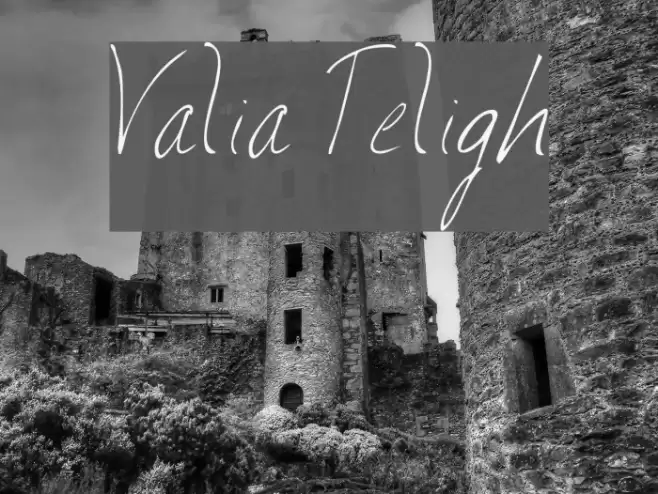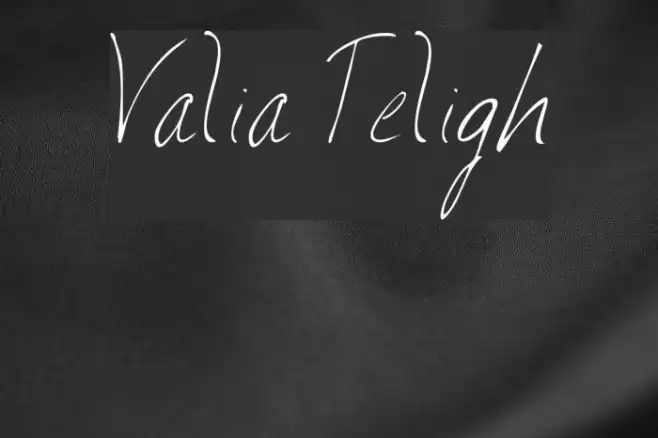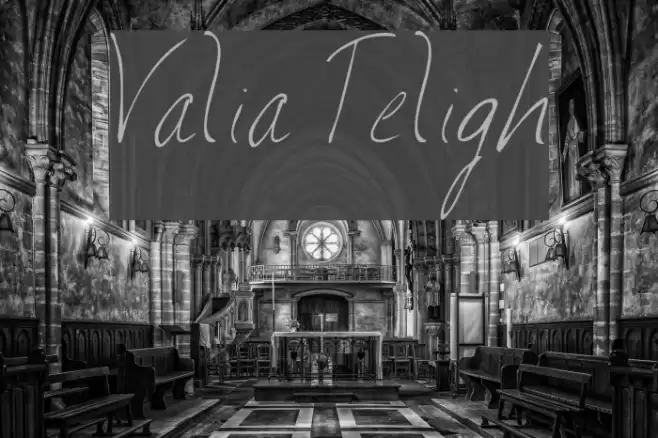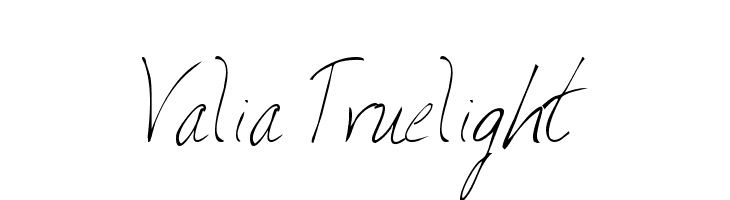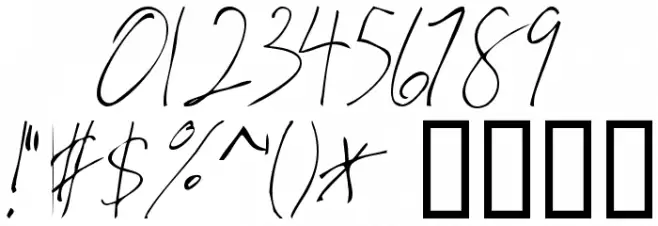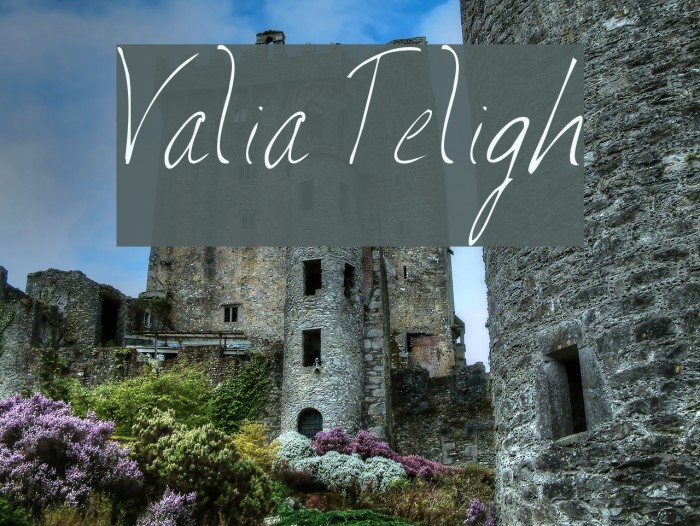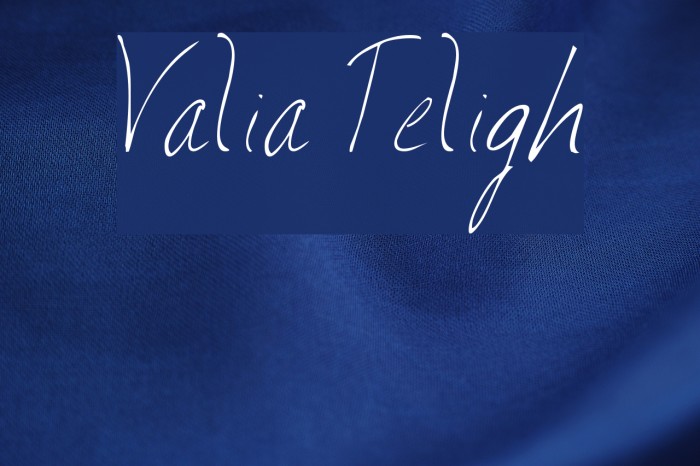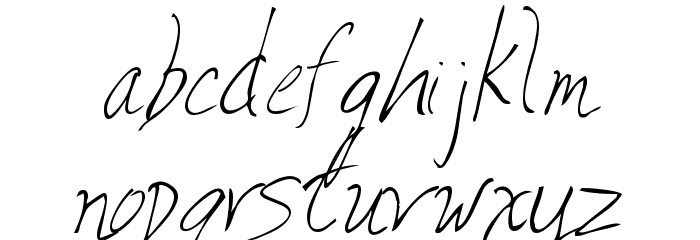
Valia Truelight
This font features a dynamic and fluid handwritten style, characterized by its elegant and flowing letterforms. The strokes are smooth and slightly irregular, giving it a natural and personal touch. The uppercase letters are tall and slender, while the lowercase letters maintain a consistent rhythm, enhancing readability. Numbers and special characters are crafted with the same attention to detail, ensuring a cohesive appearance across all glyphs. The overall design exudes a sense of sophistication and creativity, making it suitable for projects that require a personal and artistic flair.
A dynamic and fluid handwritten font with elegant, flowing letterforms.